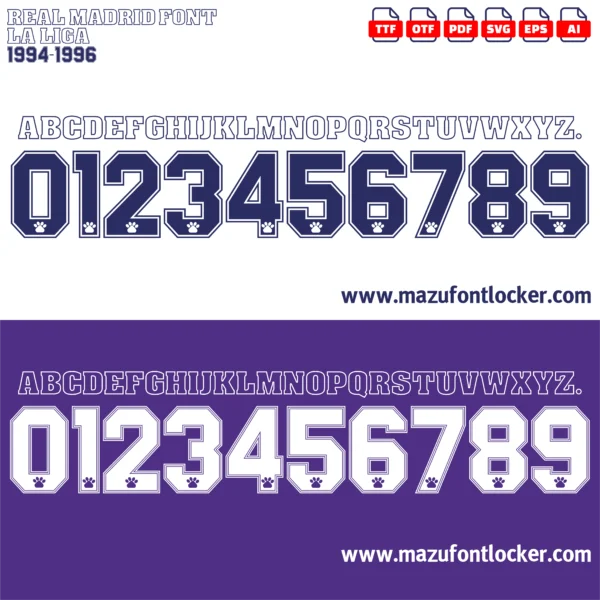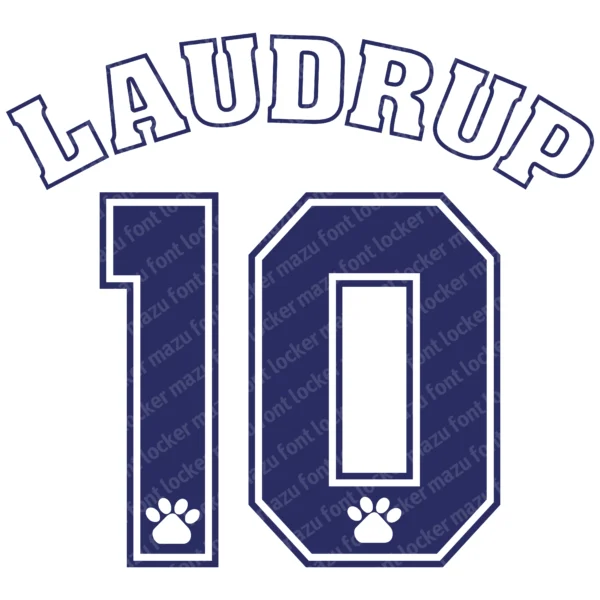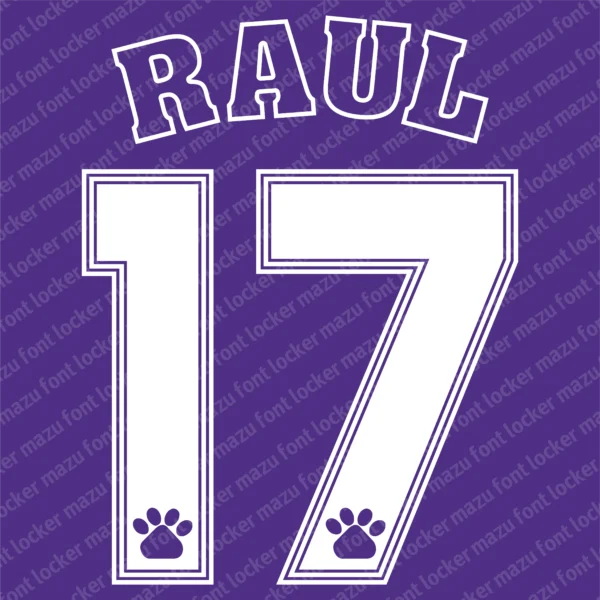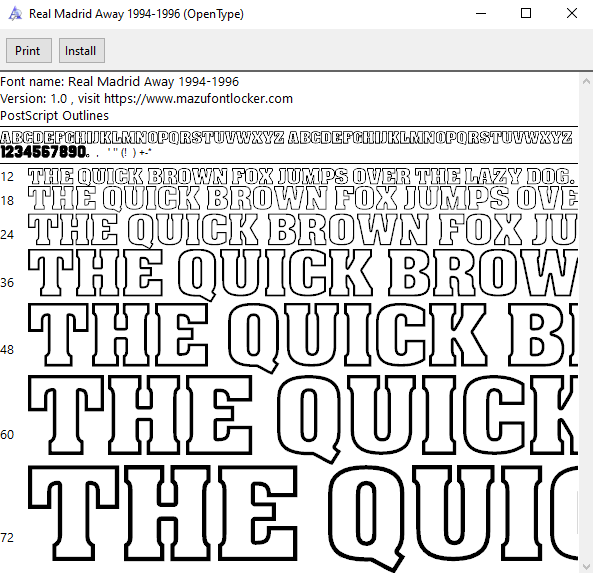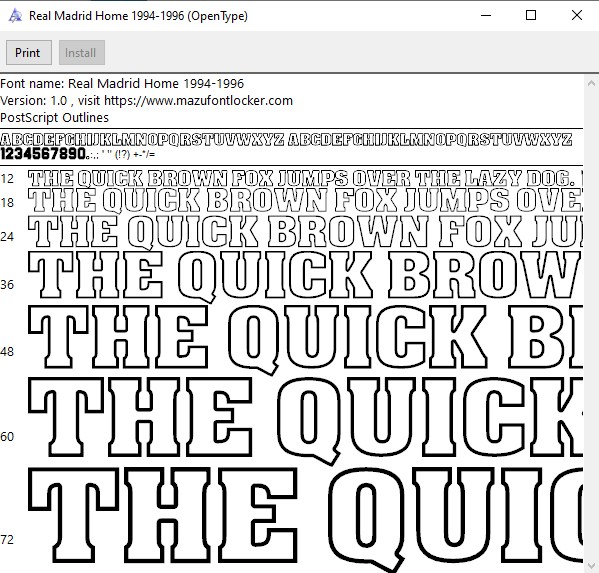
Real Madrid 1994-1996 Font Vector – Legendary Los Blancos Masterpiece (Requested)
This font locks in the clean, commanding, white-hot lettering that embodies Real Madrid’s legendary identity, Spanish football royalty, Santiago Bernabéu heritage, and elite European dominance — delivering raw authenticity, premium punch, explosive intensity, and true Champions League power for jersey mockups, dynamic sports graphics, pro branding, and high-impact fan designs.
Real Madrid 1994-1996 Font Vector – Stunning Los Blancos White & Gold Typeface
The Real Madrid 1994-1996 Font Vector is a premium typeface that accurately recreates the distinctive match lettering associated with Real Madrid during the 1994-1996 football seasons. This high-quality vector font kit captures the bold, clean, and instantly recognizable typography that perfectly complements the club’s iconic pure white identity and golden accents of the mid-1990s era.
Designed for professional designers, football enthusiasts, jersey collectors, and passionate Real Madrid supporters, the Real Madrid 1994-1996 Font Vector delivers exceptional authenticity for creating realistic jersey mockups, football merchandise, social media graphics, match posters, squad designs, and custom fan artwork. Every character has been carefully recreated to reflect the powerful and precise visual style of one of the world’s most legendary and successful football clubs.
This font stands out thanks to its precise vector construction and authentic club-inspired styling. Every letter and numeral has been meticulously recreated to match the distinctive football lettering aesthetic associated with Real Madrid during the 1994-1996 seasons and its domestic and European campaigns.
Whether you’re producing professional football kit templates, custom jersey concepts, or eye-catching football content, the Real Madrid 1994-1996 Font Vector delivers a genuine match-ready appearance inspired by the identity of Los Blancos.
The lettering featured in the Real Madrid 1994-1996 Font Vector combines clean geometric lines with bold classic proportions. The result is a premium and highly readable typeface that reflects Real Madrid’s proud football heritage, iconic white colors, Madrid identity, and passionate global fanbase during the mid-1990s era.
• Complete uppercase A–Z alphabet and numbers 0–9 in authentic Real Madrid 1994-1996 inspired style
The 1994-1996 period marked an important chapter for Real Madrid as the club competed strongly in La Liga and European competitions while developing a new generation of talent. The club prepared for each campaign with preseason fixtures and training as they built momentum for the domestic league and European nights at the Santiago Bernabéu.
Wearing their iconic pure white colors, Real Madrid continued to represent a proud football tradition built on excellence, passion, and a deep connection with supporters at the Santiago Bernabéu and around the world.
The Real Madrid 1994-1996 Font Vector is an independently designed typeface package inspired by the official shirt lettering and visual identity associated with Real Madrid during the 1994-1996 football seasons. It has been carefully recreated for football enthusiasts, graphic designers, collectors, jersey creators, and fans producing custom football concepts, digital artwork, and fan-made projects. Please note that this is a fan-made design resource and is not an official product of Real Madrid, La Liga, UEFA, or any associated organization.